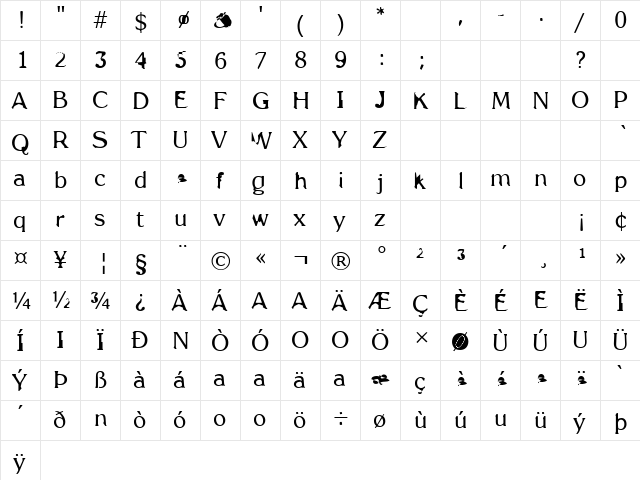
Happy Aardvark Regular Font Preview
Happy Aardvark Regular
Design Context for Happy Aardvark Typeface
Happy Aardvark offers clean, dependable letterforms without strong stylistic allegiance, making it a practical choice for designers who need flexibility.
Pro Tip: Use Happy Aardvark in both headline and body roles to test its range before committing to a single application.